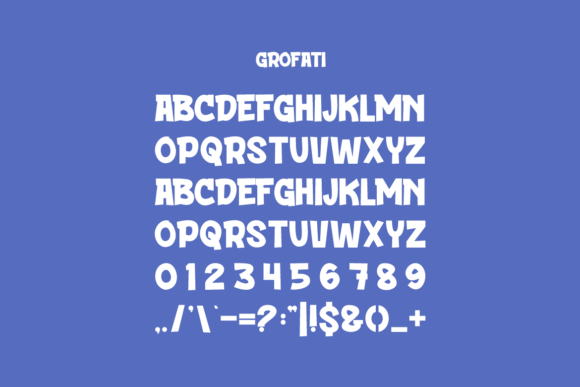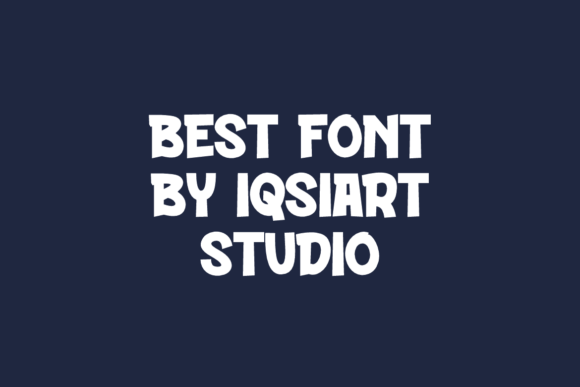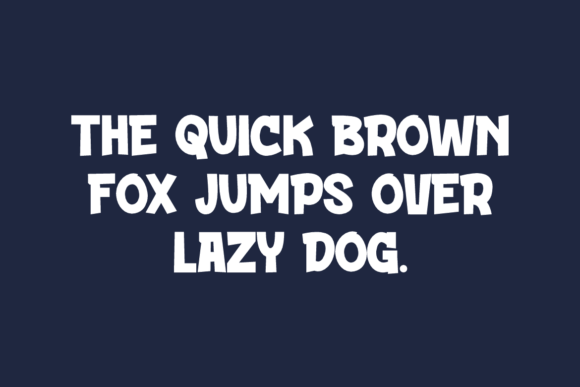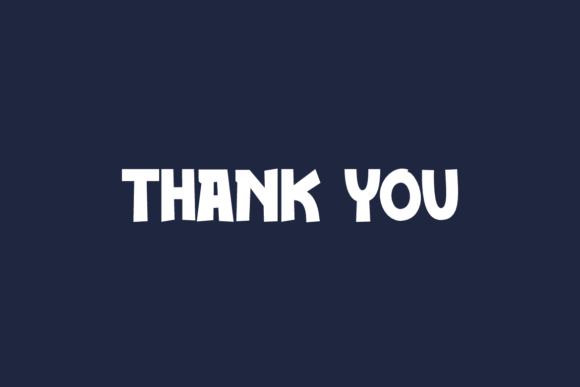
The Ultimate Game-Changer for Your Design Library
Remember the thrill of finally landing on the perfect font for your project? The moment when everything falls into place, and your design takes on a life of its own? For designers, that feeling is priceless. It’s the result of countless hours spent searching for the perfect combination of style and functionality.
Enter Grofati Font, a bold and assertive sans serif font that’s about to take your designs to the next level. This versatile font is the perfect addition to any designer’s library, capable of elevating any creation, regardless of the topic or message.
With Grofati Font, you’ll have the power to make a lasting impression and convey your message with confidence. Whether you’re a seasoned pro or just starting out, this font is sure to become your go-to asset for any design project.
Grofati Font Key Features
- Unique Characteristic: Grofati Font features a unique, hand-drawn style with a mix of geometric and organic shapes.
- Weight and Style: The font is available in a single weight, with a range of styles including Regular, Italic, Bold, and Bold Italic.
Grofati Font Review
Overall, I was quite excited to dive into the Grofati Font, but my experience was a mixed bag. Let’s start with the good stuff!
- The Grofati Font has a unique, hand-drawn feel that sets it apart from more traditional fonts.
- It’s highly customizable, with a wide range of options for tweaking the look and feel.
- The font is well-suited for creative projects, such as art books, posters, and other visual materials.
- The Grofati Font can be quite difficult to read at smaller sizes, making it less suitable for body text.
- The font’s hand-drawn feel can also make it look inconsistent at times, which may not be ideal for projects that require a more polished look.
Overall, I’d say the Grofati Font is a great choice for creative projects where you want to add a touch of personality and whimsy. However, it may not be the best fit for projects that require a more traditional or polished look. With a bit of careful planning and use, the Grofati Font can be a real showstopper.
Grofati Font Practical Application Guide
Tips for Getting the Most Out of Grofati Font
1. Use Grofati font in bold or italic styles to add emphasis to your text.
2. Experiment with different font sizes to create visual interest.
3. Pair Grofati font with other fonts to create a unique and visually appealing design.
Common Use Cases for Grofati Font
1. Branding and logo design.
2. Digital marketing materials, such as social media graphics and email newsletters.
3. Editorial and publishing design, including book covers and magazine layouts.